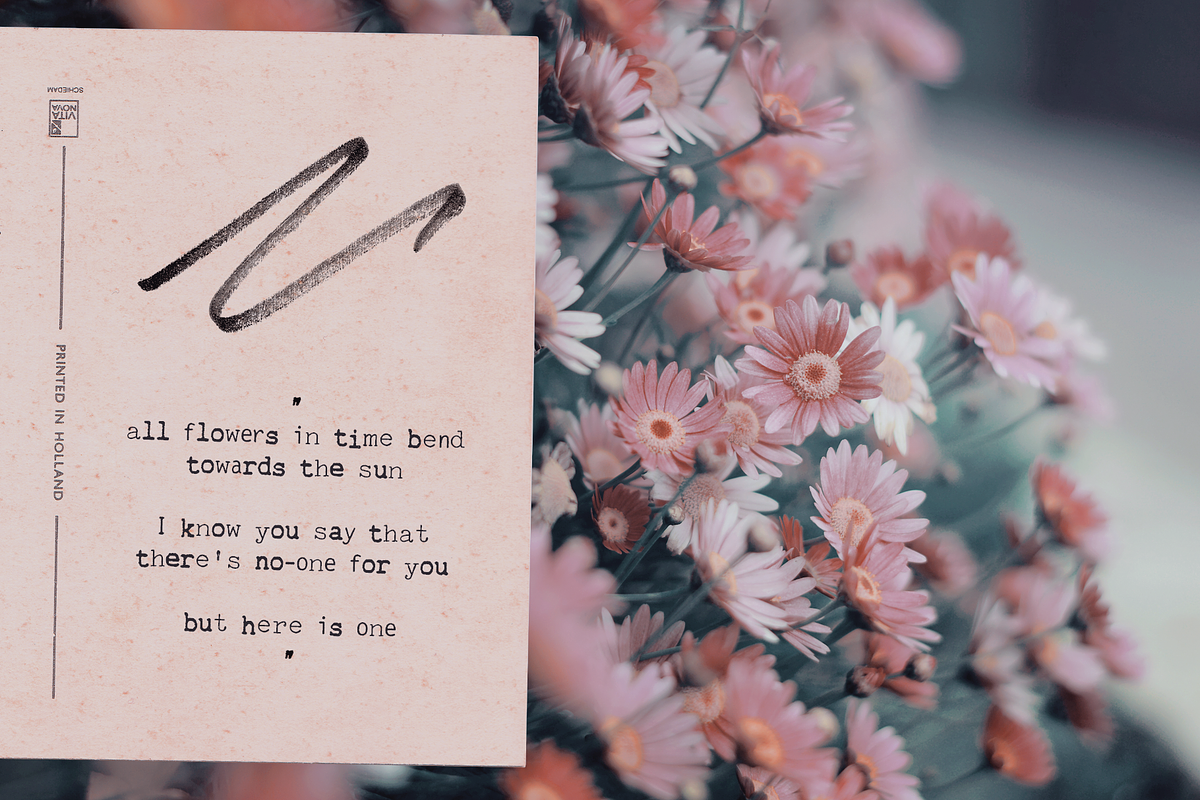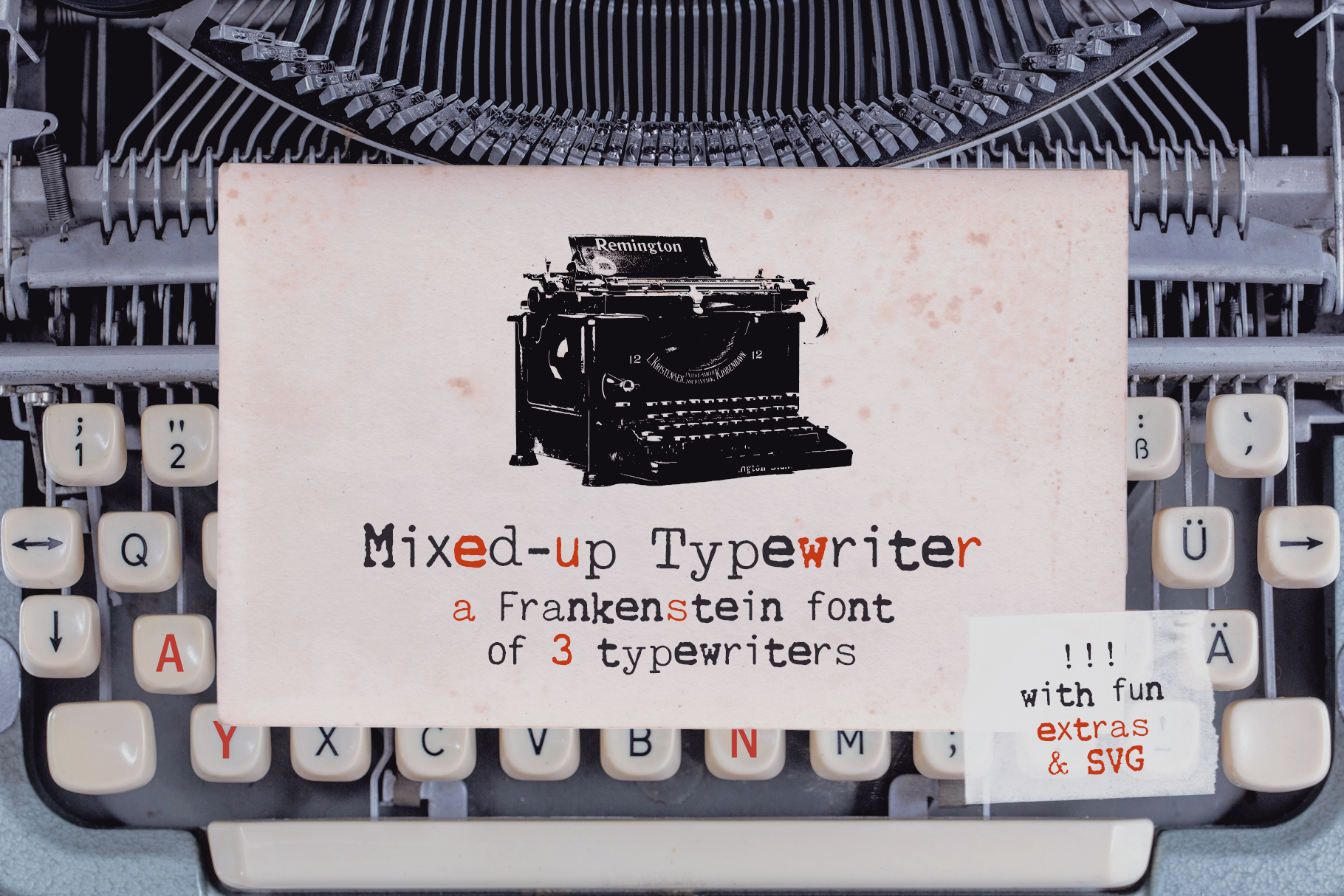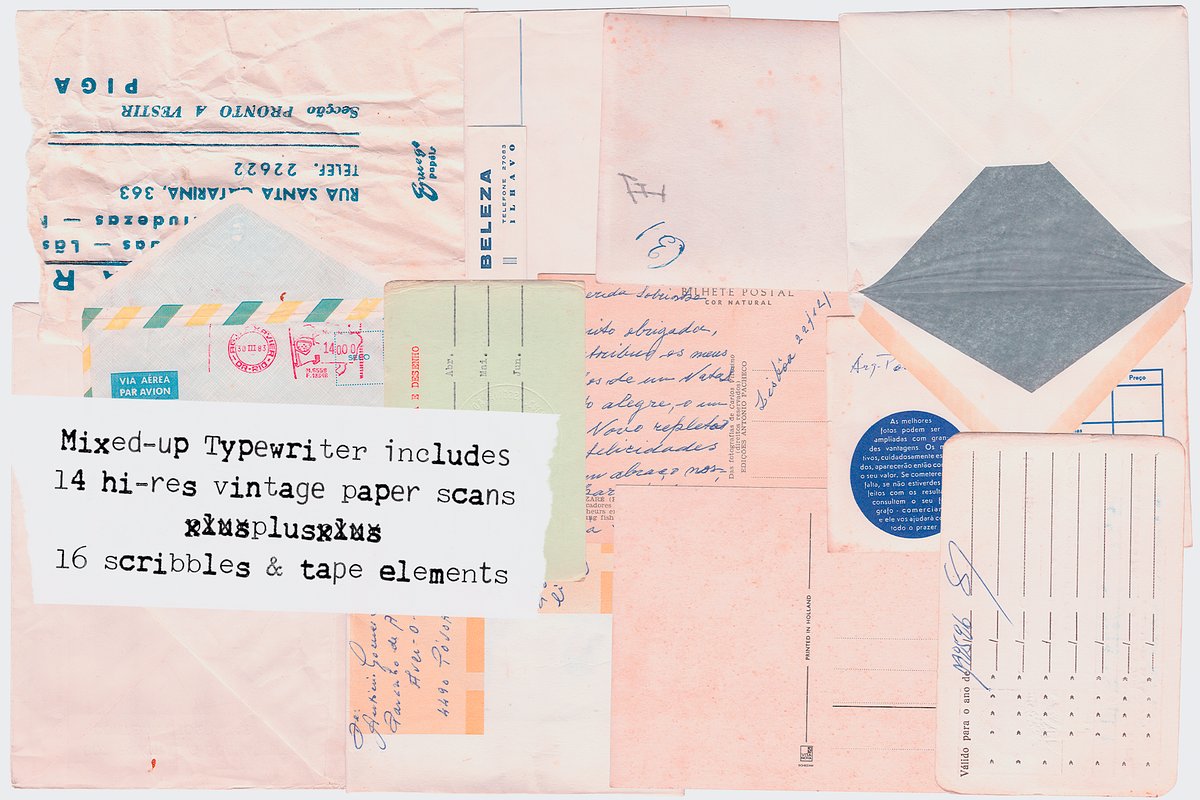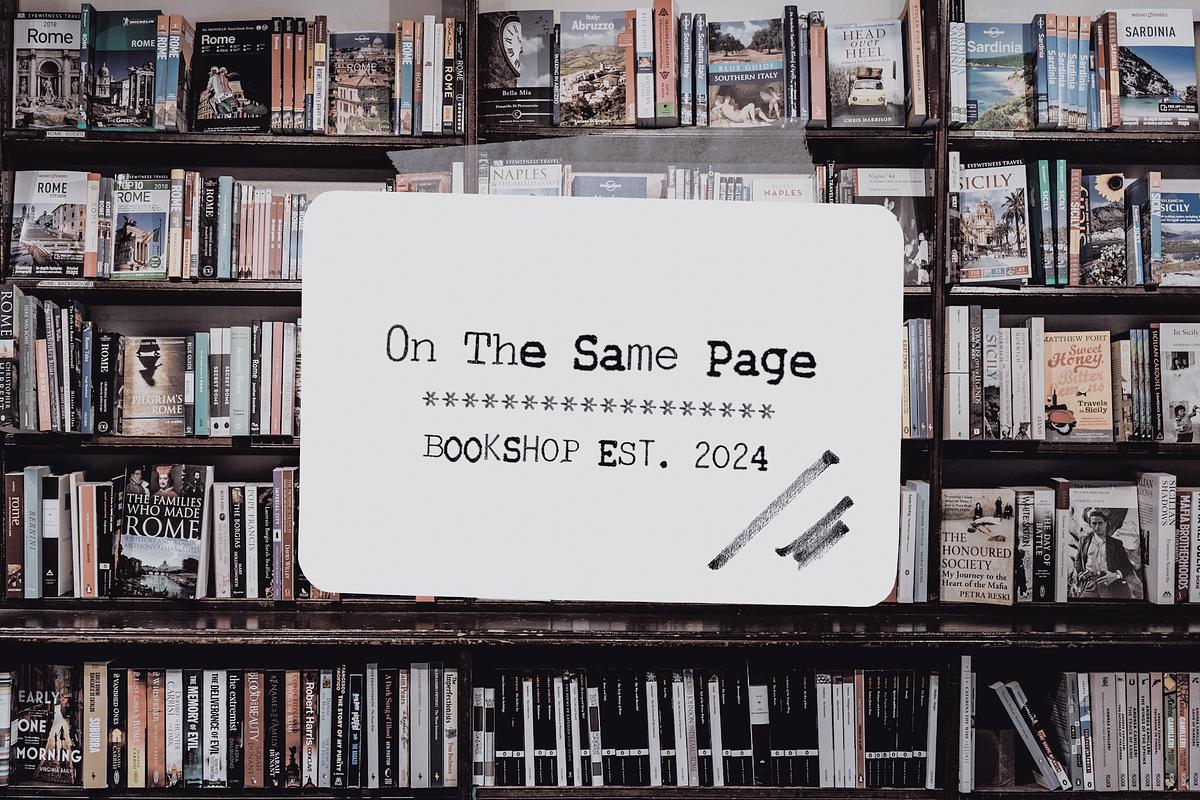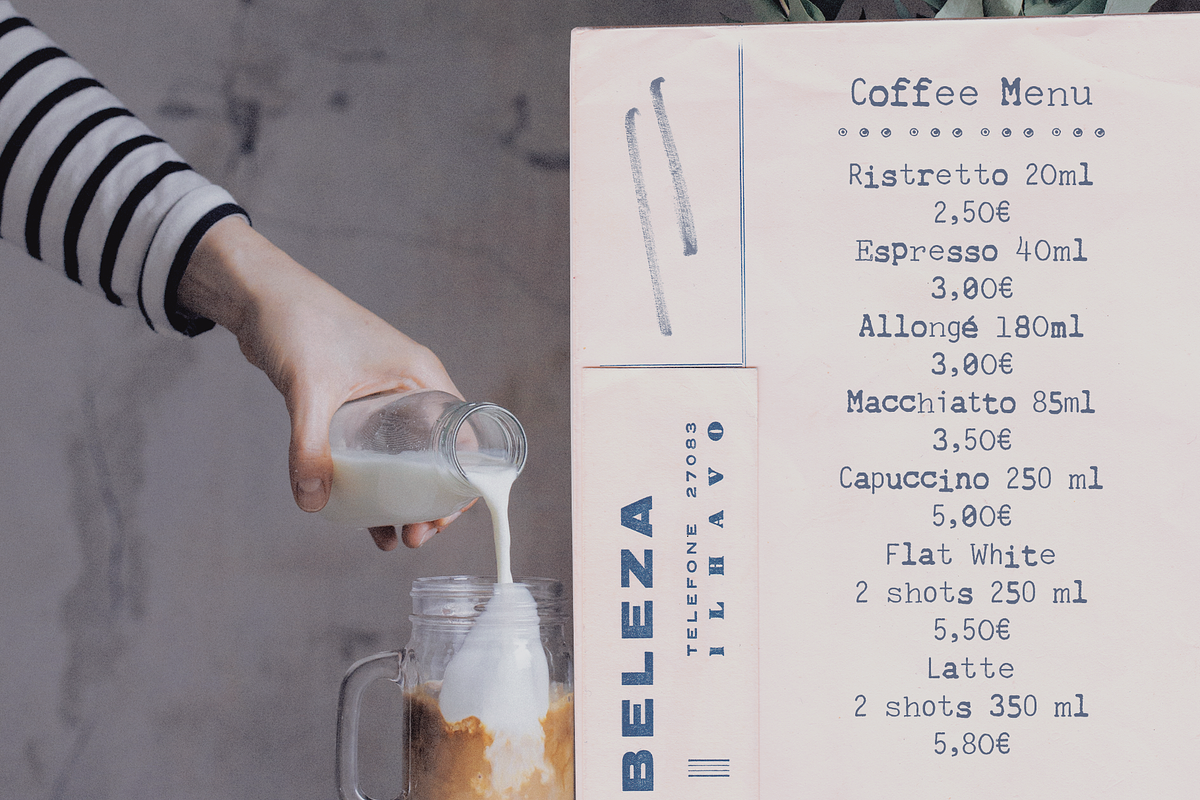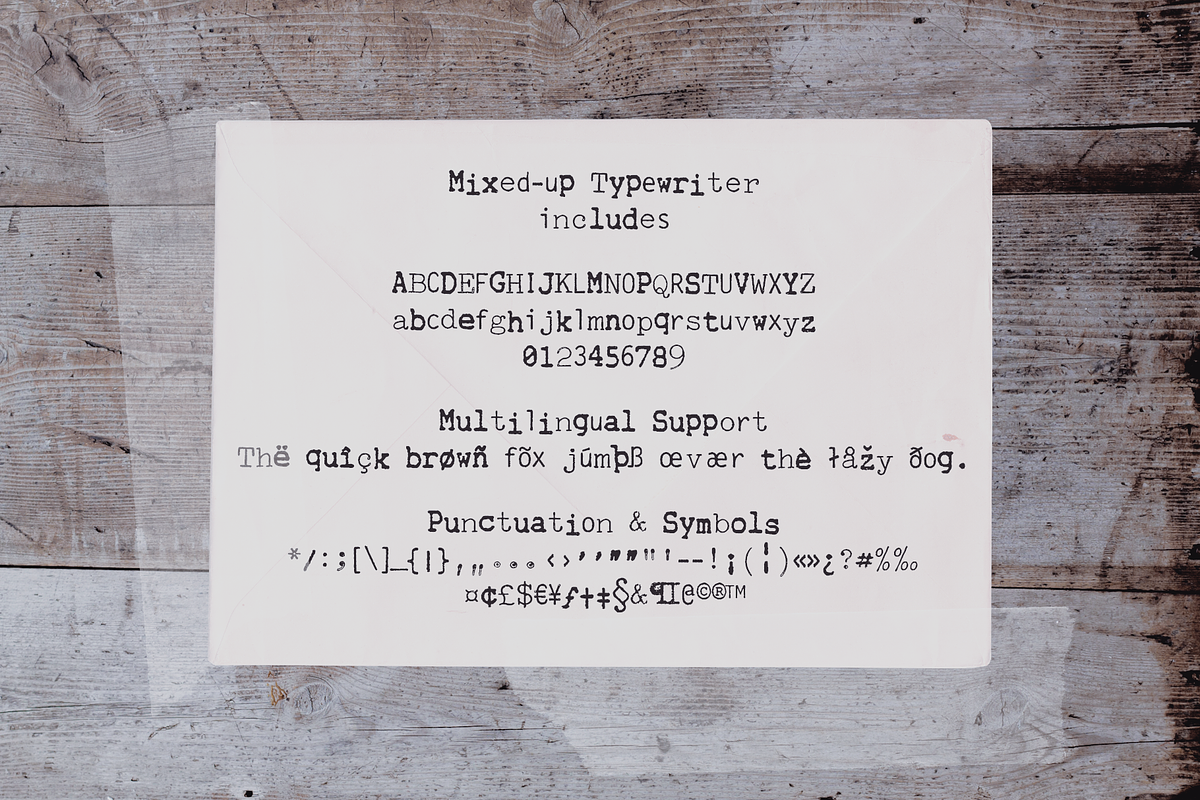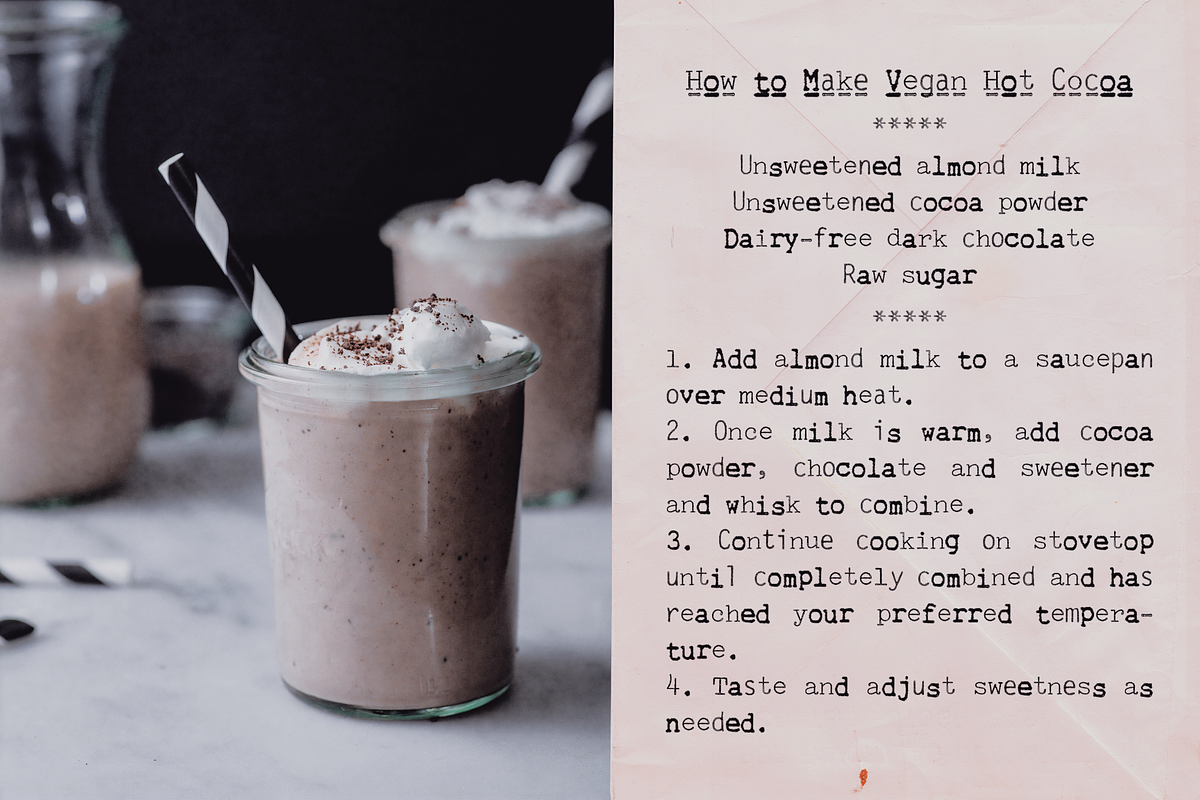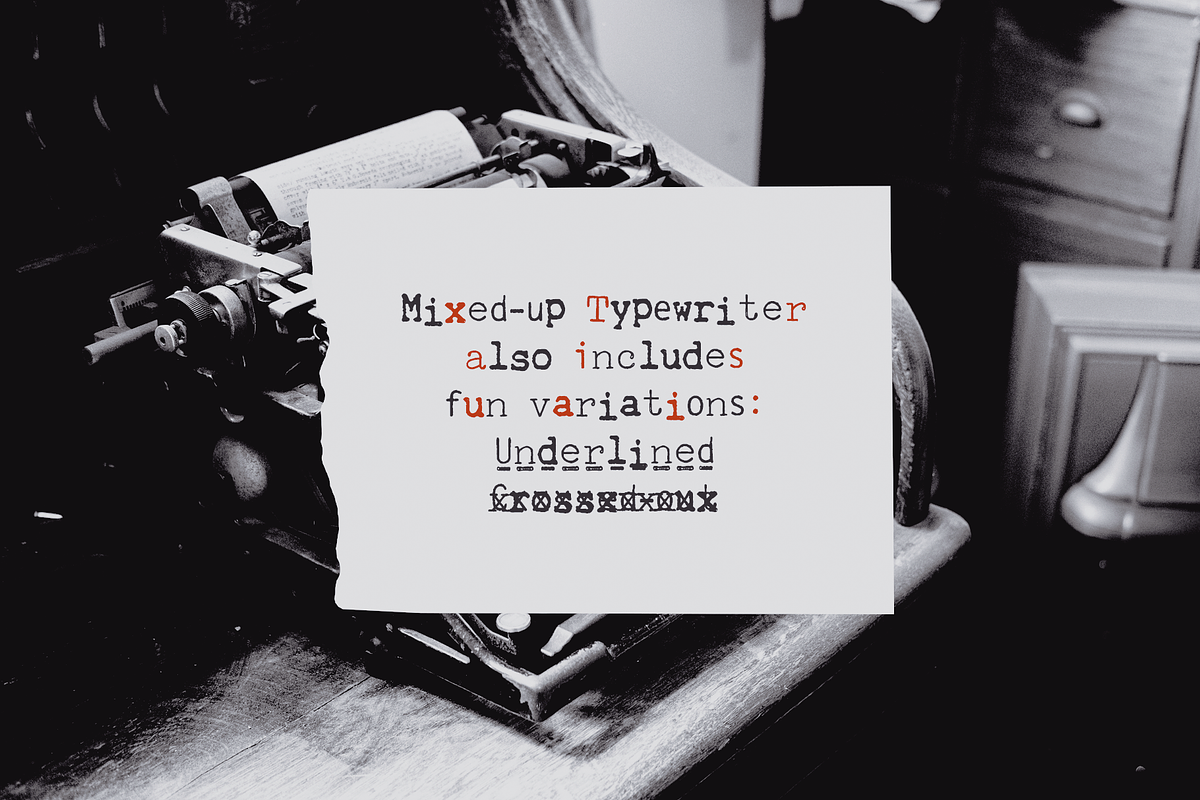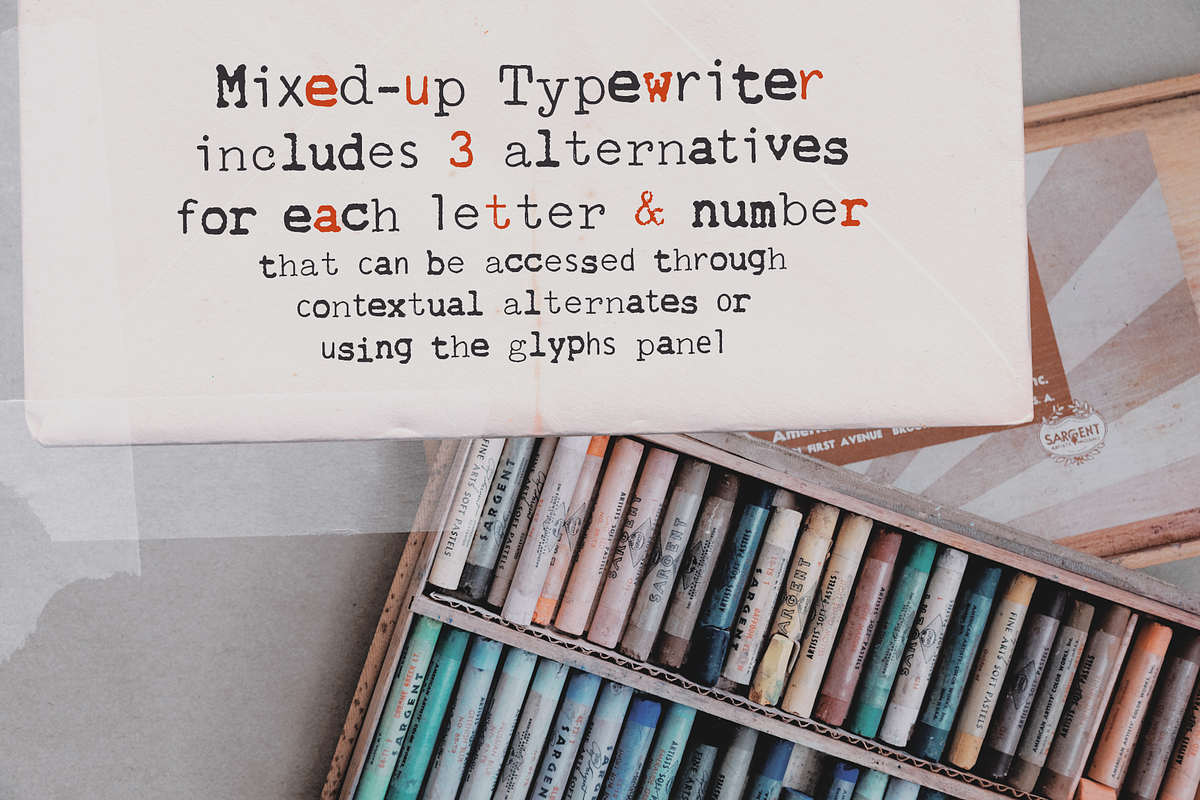
Mixed-up SVG Typewriter Font
Mixed-up Typewriter is a Frankenstein-like typewriter font, assembled from three other typewriter fonts, in SVG and vector formats, with contextual alternates and fun variations and design elements. Use this set in any designs that needs a vintage touch: in long or short texts, in digital collages, branding and packaging, social media posts, logotypes, etc.
- Mixed-up Typewriter font in SVG and vector formats, in which every letter and number includes 3 alternatives;
- Crossed-out and Underline versions of the font;